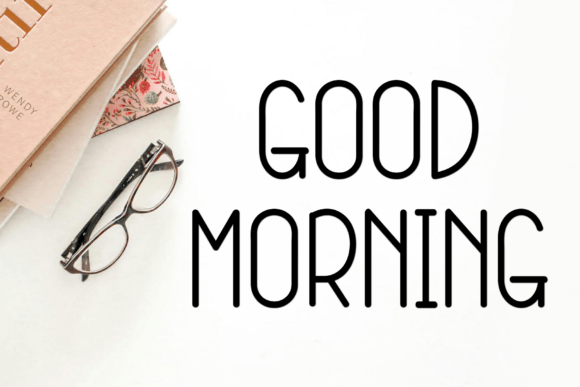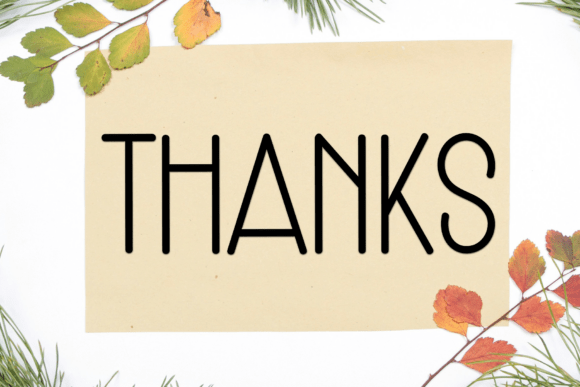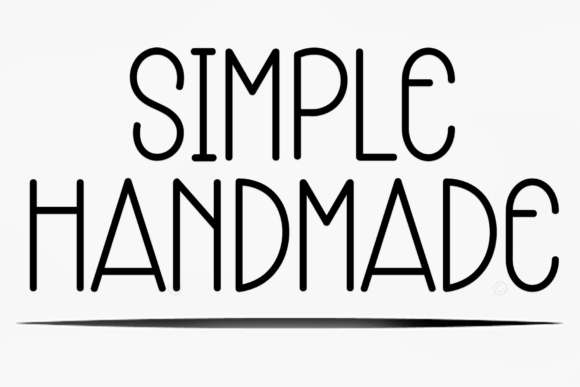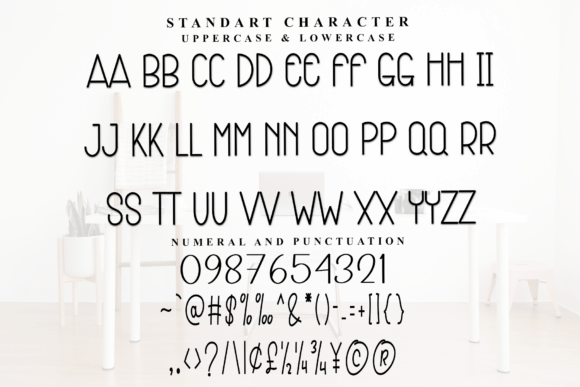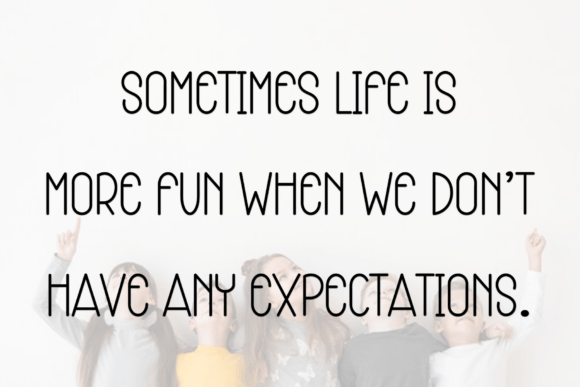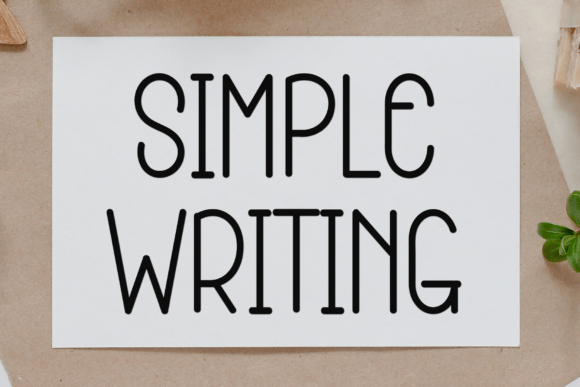
Introducing Cloud Cupcake Font: The Sweet Addition to Your Design Projects
Are you tired of using the same old fonts in your design projects? Look no further! Cloud Cupcake Font is a beautiful and eye-catching font that is sure to add a touch of sweetness to your creations. Designed with a soft, unique touch, this font is perfect for designers, crafters, and creatives looking to add a personal touch to their work.
A Font that Stands Out from the Crowd
Cloud Cupcake Font boasts distinctive strokes that give it a special character, making it meaningful and versatile for future use. Its unique design makes it perfect for a wide range of projects, from crafts and DIY designs to professional branding and marketing materials. Whether you’re creating a logo, a poster, or a social media graphic, Cloud Cupcake Font is sure to make your design stand out from the crowd.
A World of Creative Possibilities
With various characters and a wide range of applications, Cloud Cupcake Font is the perfect addition to your design toolkit. This font is compatible with various applications, including Windows and open-source platforms, making it easy to use across different devices and software. From handmade crafts to digital designs, Cloud Cupcake Font is the perfect choice for anyone looking to add a personal touch to their creations.
Cloud Cupcake Font is a dream come true for designers and crafters. Its natural font style and soft, unique touch make it perfect for a wide range of products, from handmade cards and invitations to professional branding and marketing materials. Whether you’re a professional designer or a DIY crafter, Cloud Cupcake Font is sure to inspire your creativity and take your designs to the next level.
Enhance Your Designs with Cloud Cupcake Font
With Cloud Cupcake Font, you can enhance your designs and make them appealing to a wide range of audiences across different artistic and creative fields. Its versatility and unique design make it perfect for use in various design projects, from children’s products to adult-oriented designs. Whether you’re creating a logo, a poster, or a social media graphic, Cloud Cupcake Font is sure to add a touch of sweetness and personality to your designs.
Key Features of Cloud Cupcake Font
- Unique and eye-catching design: Cloud Cupcake Font boasts a soft, unique touch that sets it apart from other fonts.
- Distinctive strokes: The font’s distinctive strokes give it a special character, making it meaningful and versatile for future use.
- Natural font style: The font’s natural style makes it perfect for a wide range of products, from handmade crafts to professional branding and marketing materials.
- Variety of characters: Cloud Cupcake Font comes with a variety of characters, making it perfect for use in various design projects.
Get Creative with Cloud Cupcake Font
If you’re looking for a font that will add a touch of sweetness and personality to your designs, look no further than Cloud Cupcake Font. With its unique design, distinctive strokes, and versatility, this font is perfect for designers, crafters, and creatives looking to take their designs to the next level. So why wait? Download Cloud Cupcake Font today and get creative!
In conclusion, Cloud Cupcake Font is a beautiful and eye-catching font that is sure to add a touch of sweetness to your design projects. With its unique design, distinctive strokes, and versatility, this font is perfect for designers, crafters, and creatives looking to add a personal touch to their work. Whether you’re creating a logo, a poster, or a social media graphic, Cloud Cupcake Font is sure to make your design stand out from the crowd. So why wait? Download Cloud Cupcake Font today and take your designs to the next level!